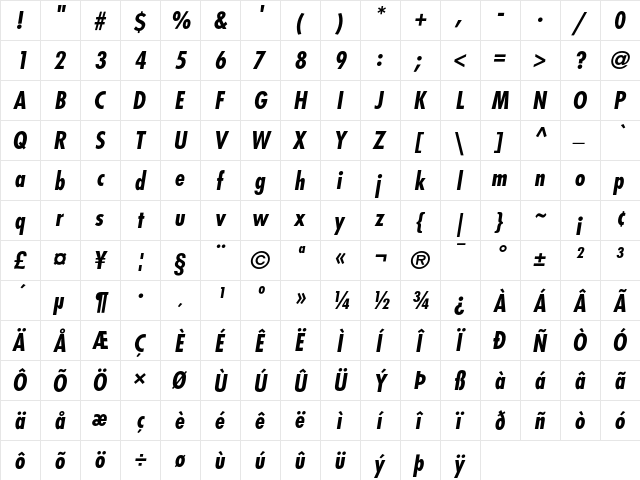
Futura Condensed Bold Oblique Font Preview
Design Context for Futura Typeface
Futura has a distinctly futuristic character, with geometric precision and clean angles that feel at home in technology, gaming, and sci-fi contexts. Its italic angle brings a sense of urgency and motion to the letterforms. The heavy weight commands attention and anchors typographic hierarchies. The condensed width makes it efficient for tight spaces without sacrificing legibility.
Pro Tip: Try Futura with generous letter-spacing in UI labels and navigation — the geometric forms benefit from room to breathe.